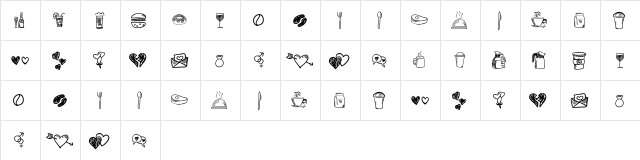
Astrokids Doodle Regular
Design Context for Astrokids Doodle Typeface
Astrokids Doodle has an approachable, lighthearted character — its loose, expressive forms are well-suited to children's content, casual branding, and fun-first design.
Font Pairing: Pairs well with a rounded or humanist sans for body copy, maintaining the friendly tone without relying on Astrokids Doodle to carry extended reading.
Pro Tip: Avoid using Astrokids Doodle for long passages of text — it works best for headlines, labels, and short calls to action.